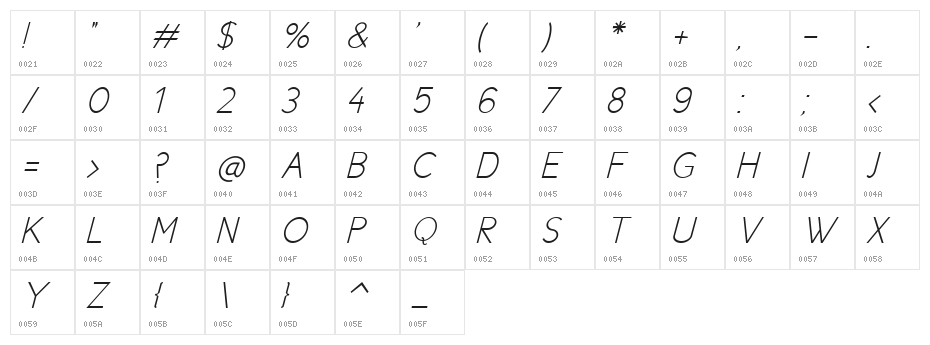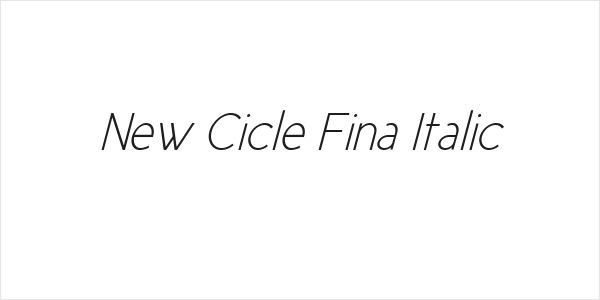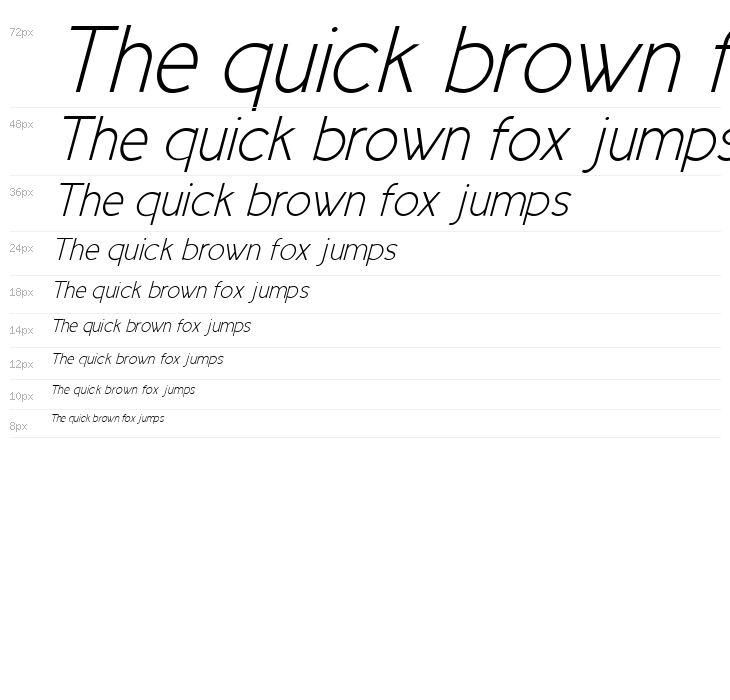
New Cicle Fina Italic Font
New Cicle Fina Italic Description
This font features a sleek and modern design with a subtle italic slant, giving it a dynamic and elegant appearance. The characters are uniformly thin, contributing to a clean and sophisticated look. The uppercase and lowercase letters maintain a consistent style, with smooth curves and sharp edges that enhance readability. The numerals are designed to match the overall aesthetic, ensuring a cohesive appearance across all characters. Special characters are included, providing versatility for various design needs. The font's minimalist style makes it suitable for contemporary projects, where clarity and style are paramount.